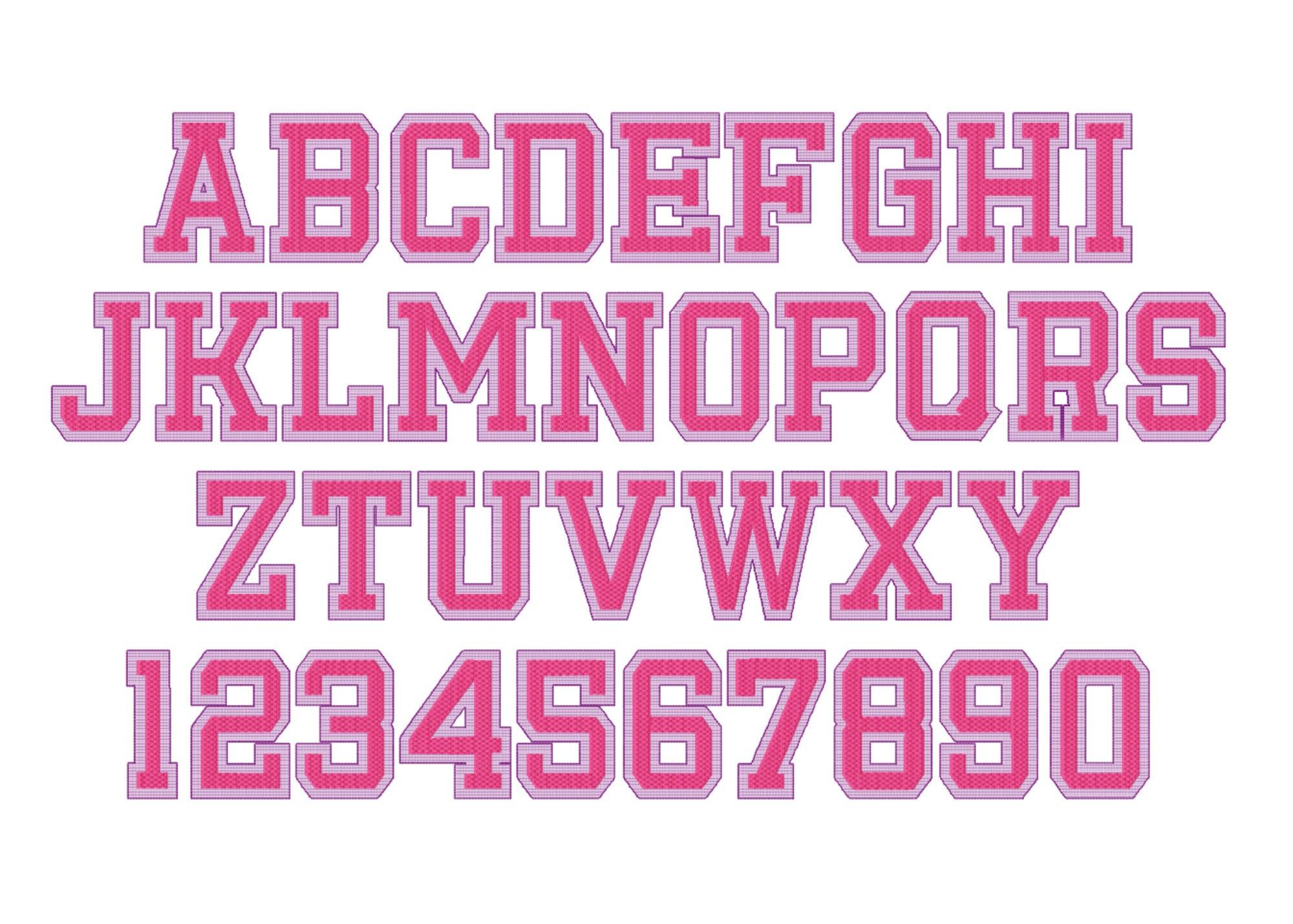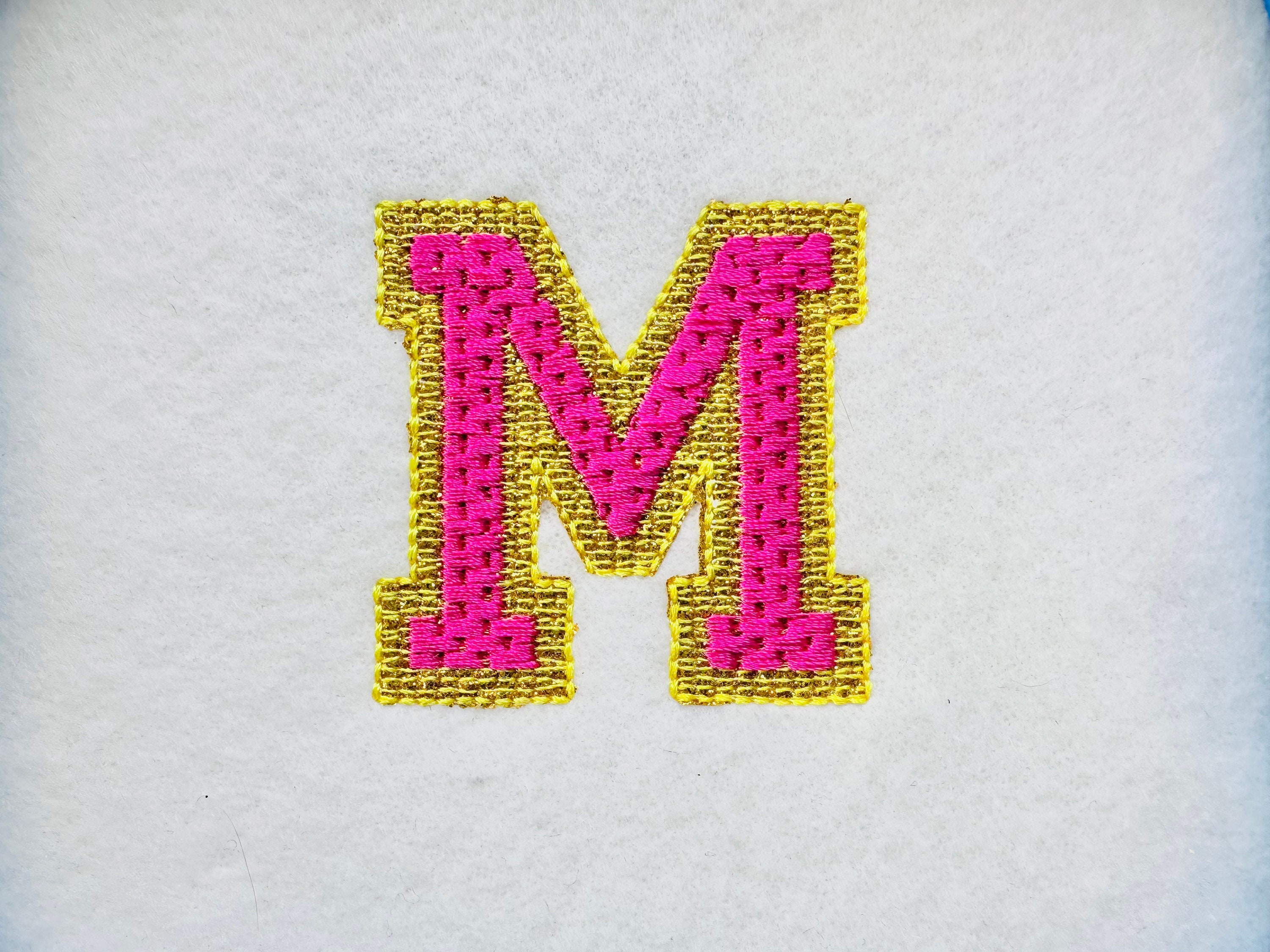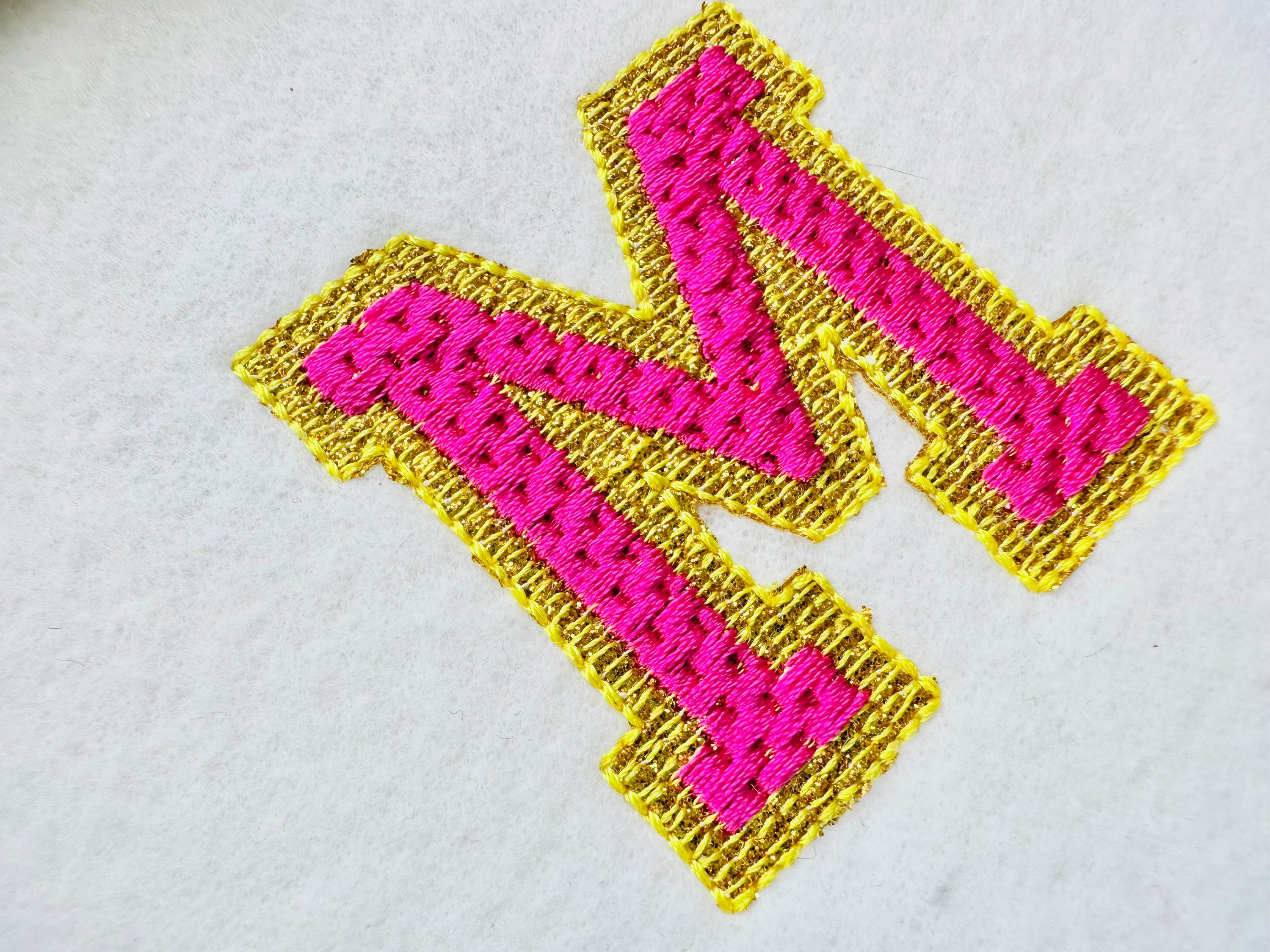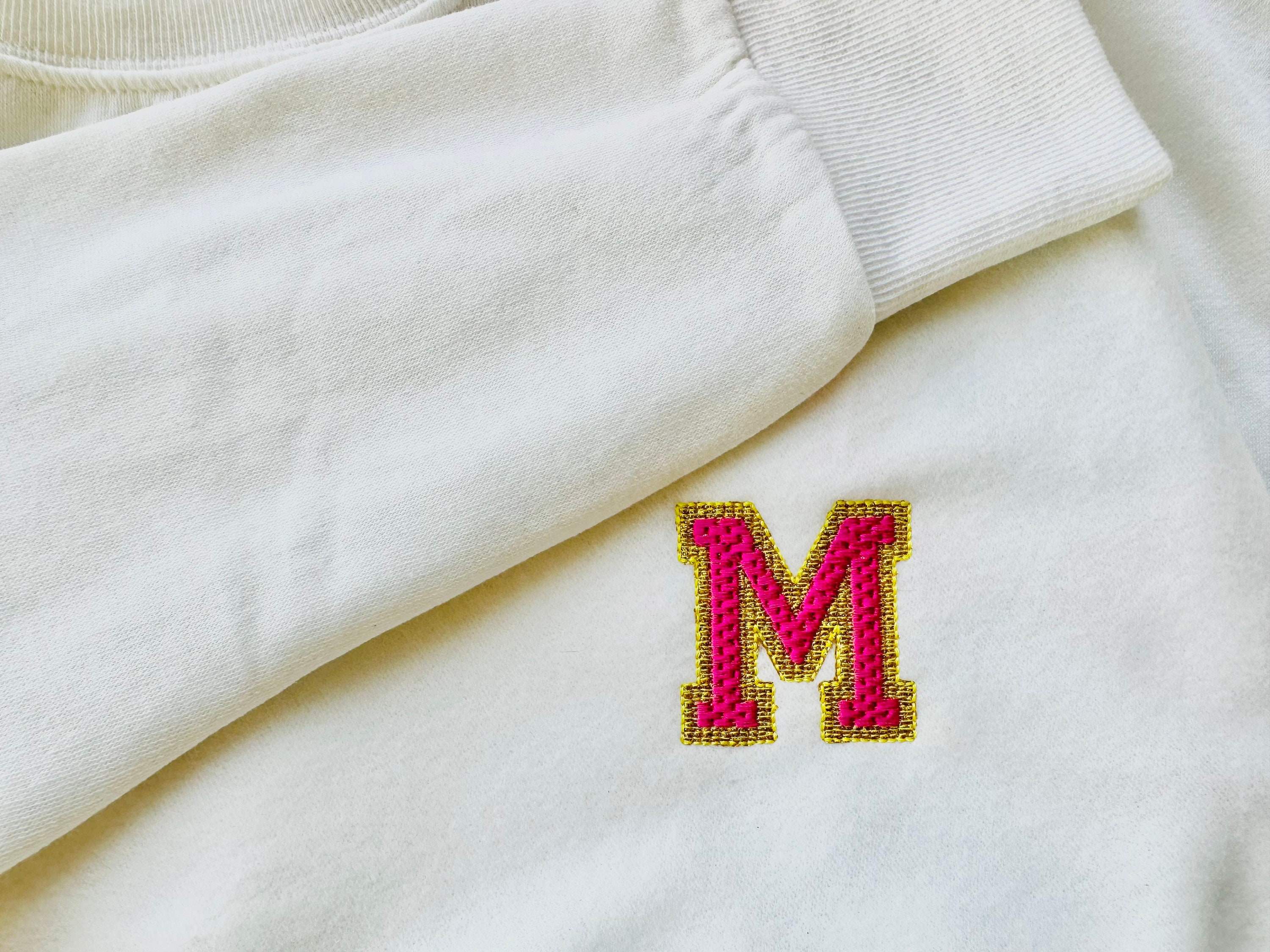
Waffle Glitter HTV embroidery Font Sport Varsity glitter vinyl alphabet letters machine embroidery designs mini big 1.5 thru 4.5 inches, BX included
This stitched out perfectly. Love the look of the waffle fill stitch.